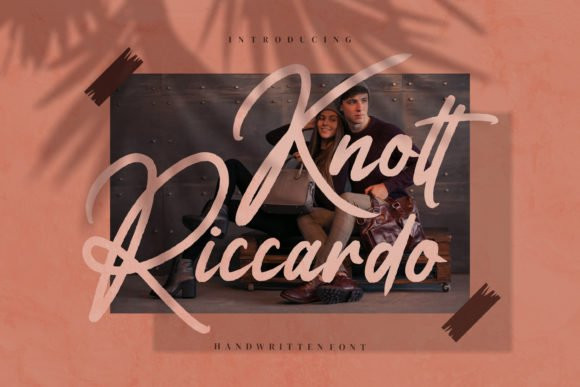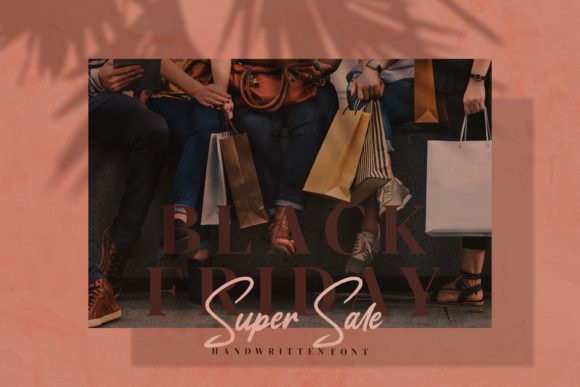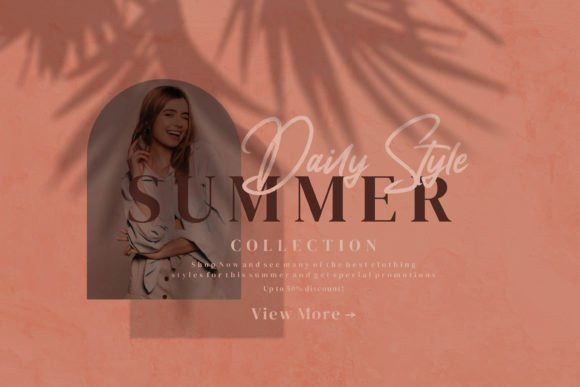
Knott Riccardo Font
Knott Riccardo FontKnott Riccardo is a cursive and elegant handwritten font. It looks beautiful on a variety of designs requiring a personalized style, such as wedding invitations, thank you cards, weddings, greeting cards, logos and so on. https://www.creativefabrica.com/product/knott-riccardo/